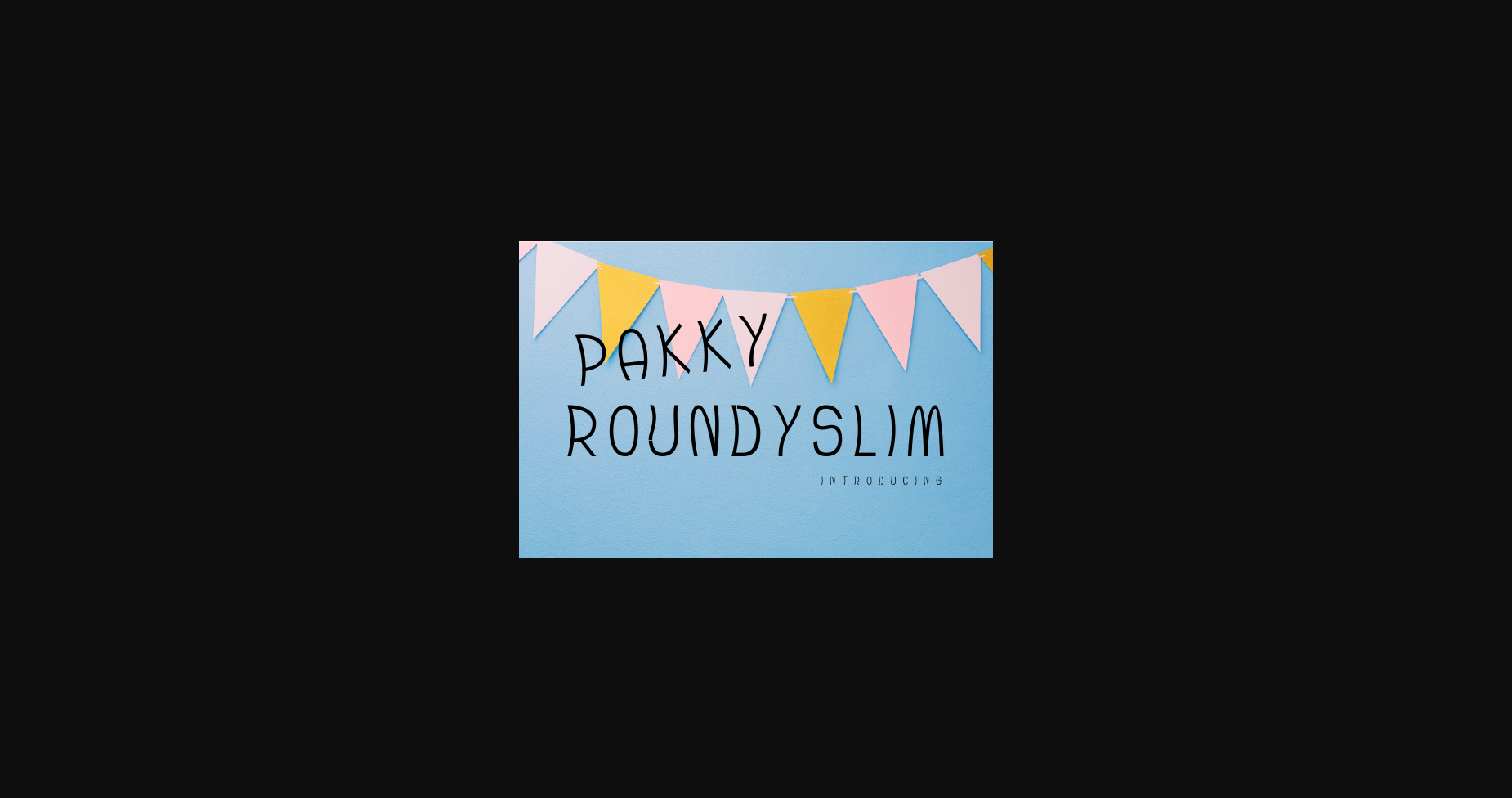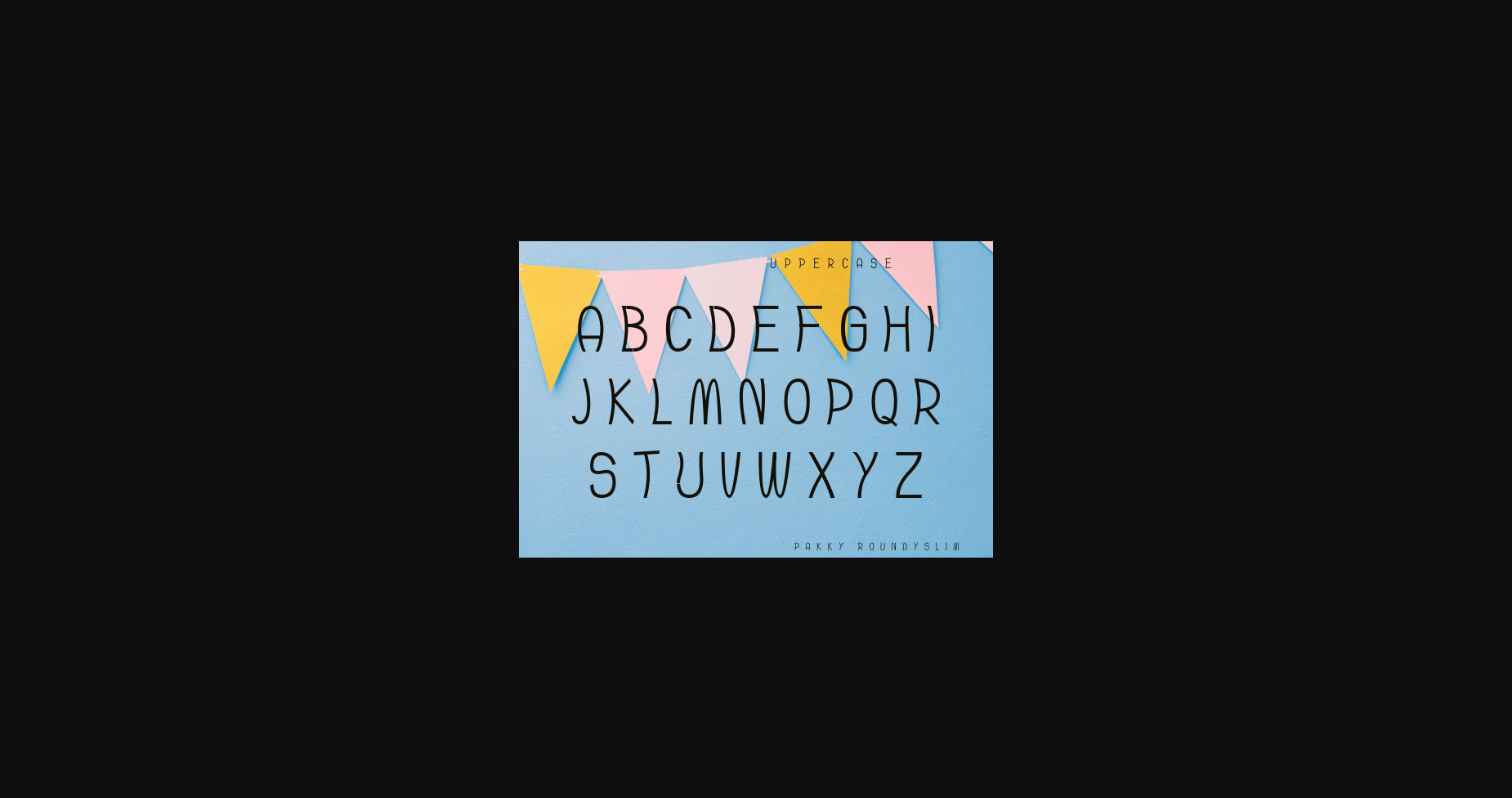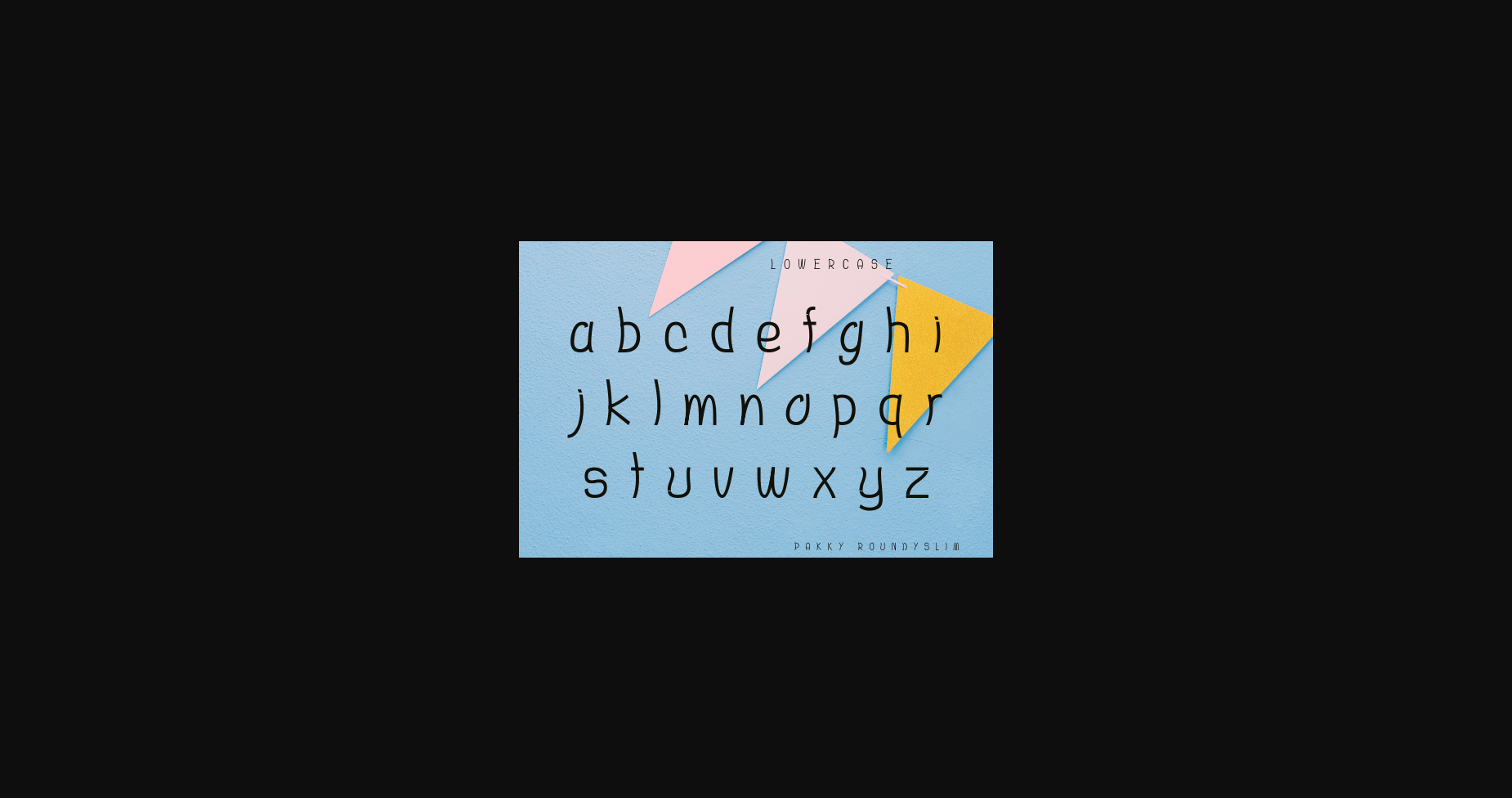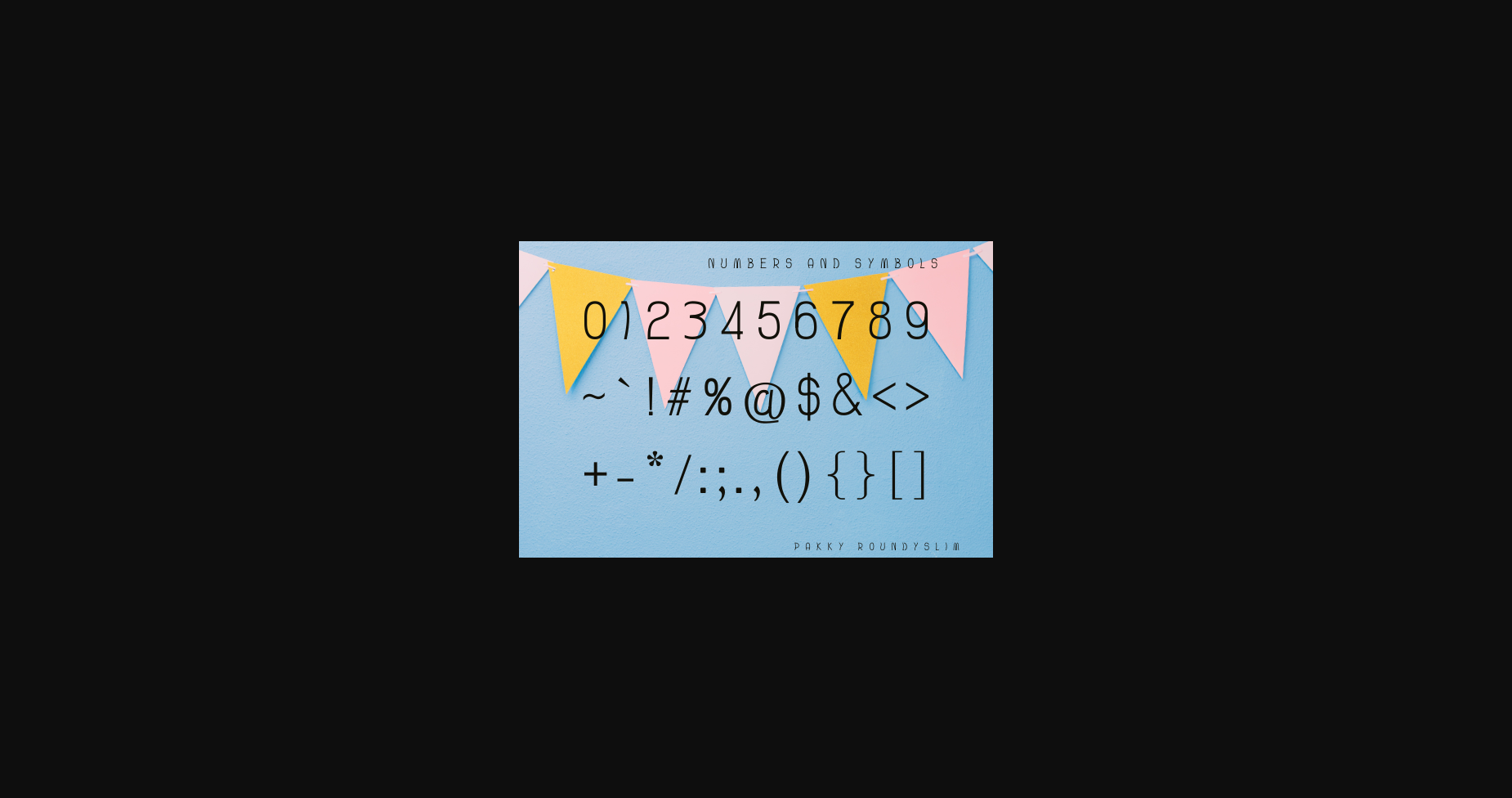
About Pakky Roundyslim Font
Pakky Roundyslim is a cute, slim, and funny sans serif font that looks great in creative ideas, digital designs, presentations, or making your cards. Use this font for your designs and explore its endless possibilities.